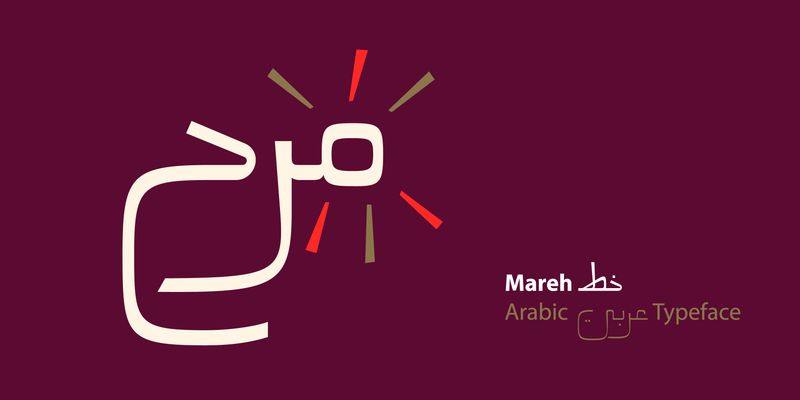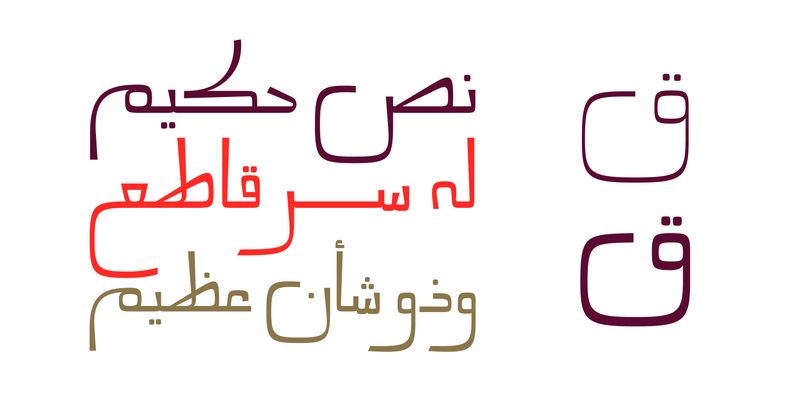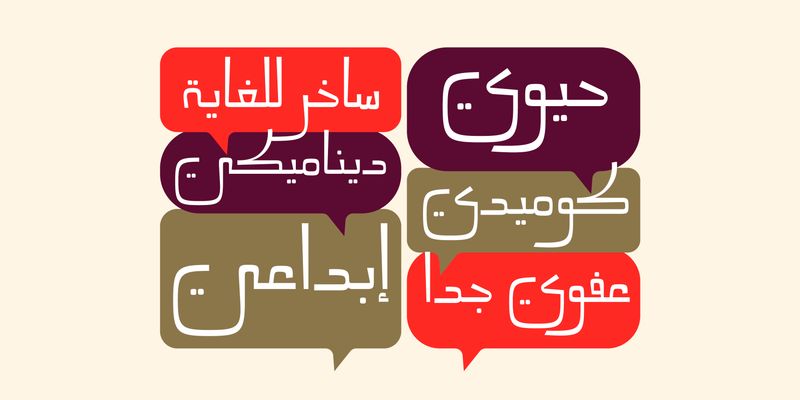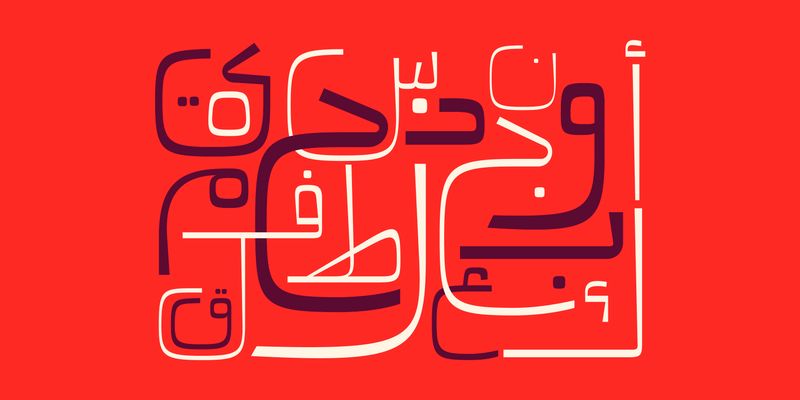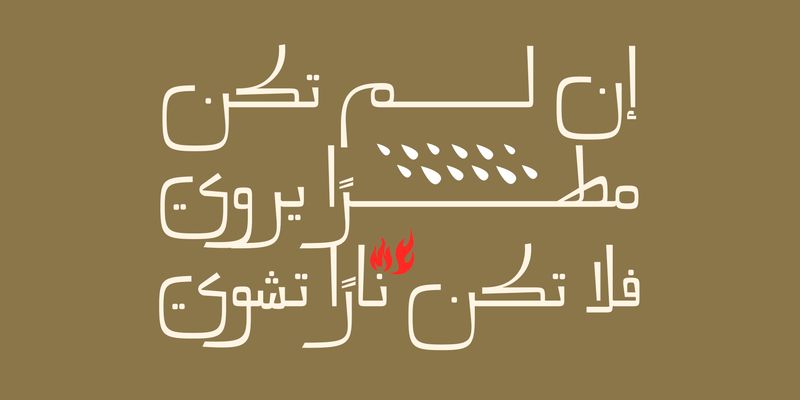
Mareh (the Arabic word for “Cheerful”) is an Arabic display font featuring a prolonged, squared letterform structure. The Mareh typeface includes two weights: Regular and Bold. It is suitable for a wide range of creative projects, including web, publication, packaging, branding, and mobile applications.
Mostafa El Abasiry is an independent Arabic type designer whose work has helped define a new era of expressive Arabic typography. Since 2009, he has built a distinctive and influential catalogue of Arabic typefaces known for their bold geometry, modern aesthetics, and emotionally resonant visual character. His designs are widely recognized for merging the structural clarity of geometric construction with the creative freedom of contemporary display typography.
Mostafa’s approach is rooted in a balance of mathematical precision and artistic intuition. Many of his typefaces begin as geometric studies - circles, arcs, grids, and modular systems, before evolving into expressive display families with strong visual identity. Other designs explore texture, layering, and experimental forms, expanding the expressive potential of Arabic letterforms in digital environments.
In 2017, Mostafa introduced Tajreed, the first Arabic OpenType‑SVG color font ever created. This pioneering work brought textured, multi‑layered Arabic typography into mainstream digital use and opened a new category of expressive Arabic tools for designers and everyday creators. Tajreed later grew into a broader ecosystem of textured and experimental families that influenced how Arabic typography appears in mobile apps, creative platforms, and user‑generated content.
Mostafa’s typefaces have been used by a wide range of clients, from global brands such as Apple TV+ and Turkish Airlines to millions of everyday creators. Despite this reach, his design process remains deeply personal: every typeface begins with hand‑drawn sketches, geometric construction, and a search for a unique visual voice rooted in Arab visual culture.
Today, Mostafa continues to expand his catalogue with new display families, textured experiments, and modern interpretations of Arabic typographic heritage. His work aims to give designers and creators expressive tools that did not exist before - tools that make Arabic typography feel bold, modern, and alive.